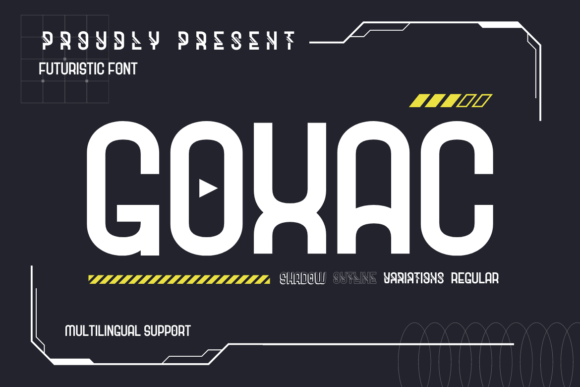
Dive into the realm of digital enchantment with Goxac Font, a visionary display font that transcends the boundaries of ordinary typography. Its sleek lines and distinctive letterforms are a testament to the harmonious fusion of futuristic aesthetics and contemporary appeal. Whether you're designing a gaming website, crafting a captivating logo, or seeking to infuse your projects with an avant-garde touch, Goxac emerges as the ultimate font of choice.
Goxac's meticulously crafted glyphs exude a striking presence, commanding attention with their sharp angles and dynamic curves. Its bold structure is a symphony of geometric precision, evoking a sense of modernity and innovation. The font's clean lines and minimalist aesthetic create an effortlessly sophisticated look, while its distinctive letterforms add a touch of intrigue and uniqueness.
Transport your designs to the cutting edge of creativity with Goxac. Its futuristic flair effortlessly elevates any project, whether it's a sleek gaming website, an eye-catching logo, or a captivating social media campaign. Unleash your imagination and watch as Goxac transforms your designs into captivating masterpieces that resonate with the modern era.
With Goxac at your fingertips, you unlock a world of possibilities. Its versatility extends beyond digital realms, making it a versatile choice for print designs as well. Create stunning posters, flyers, brochures, and packaging that exude a futuristic charm. Goxac's adaptability knows no bounds, allowing you to effortlessly transition from digital to print and back again.
Dive into the world of Goxac Font and embrace a new era of creativity. Its sleek lines, bold structure, and futuristic aesthetic will captivate your audience, leaving a lasting impression that sets your designs apart from the ordinary. Experience the power of innovation and let Goxac guide you on a journey of visual enchantment.